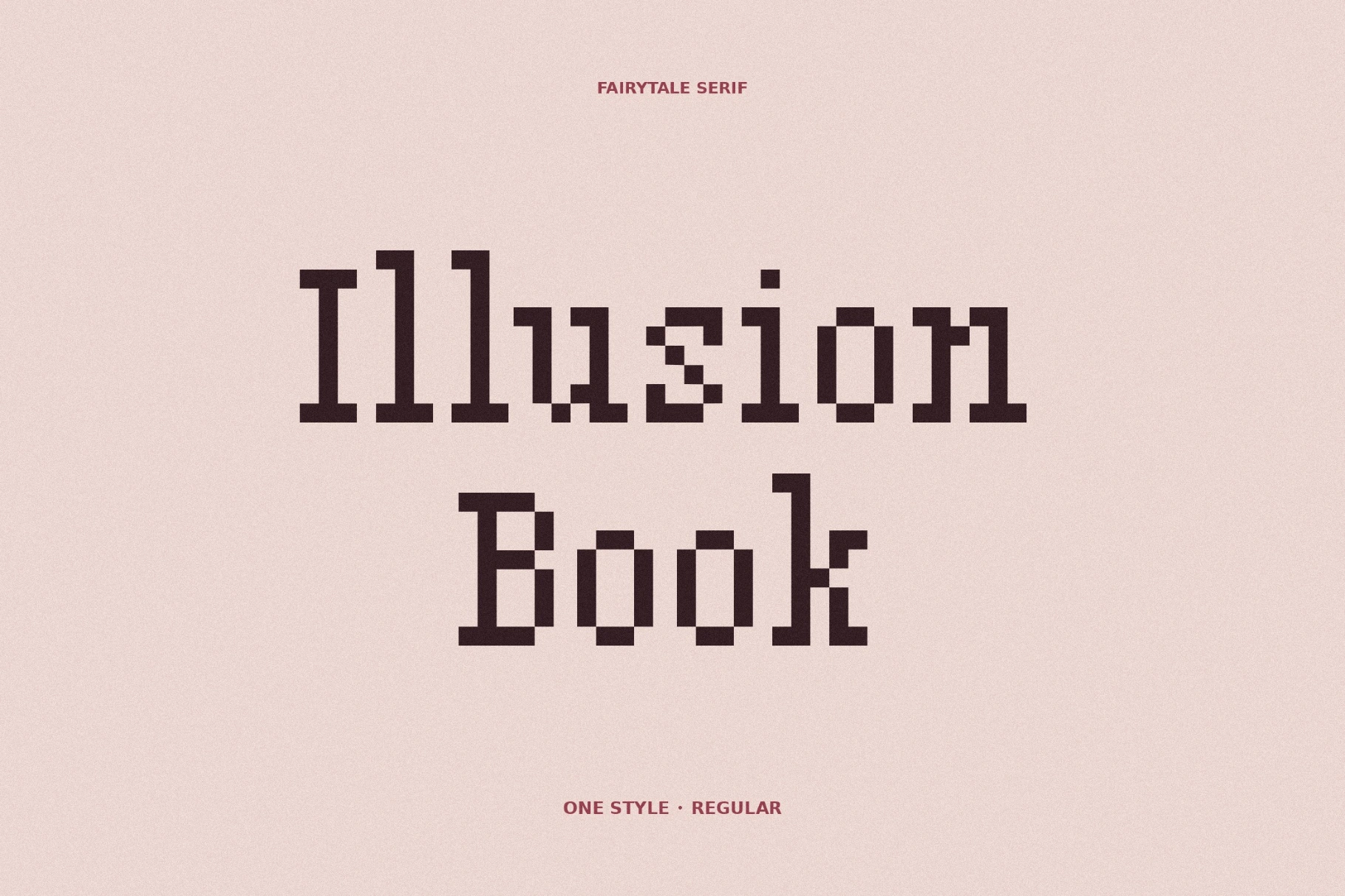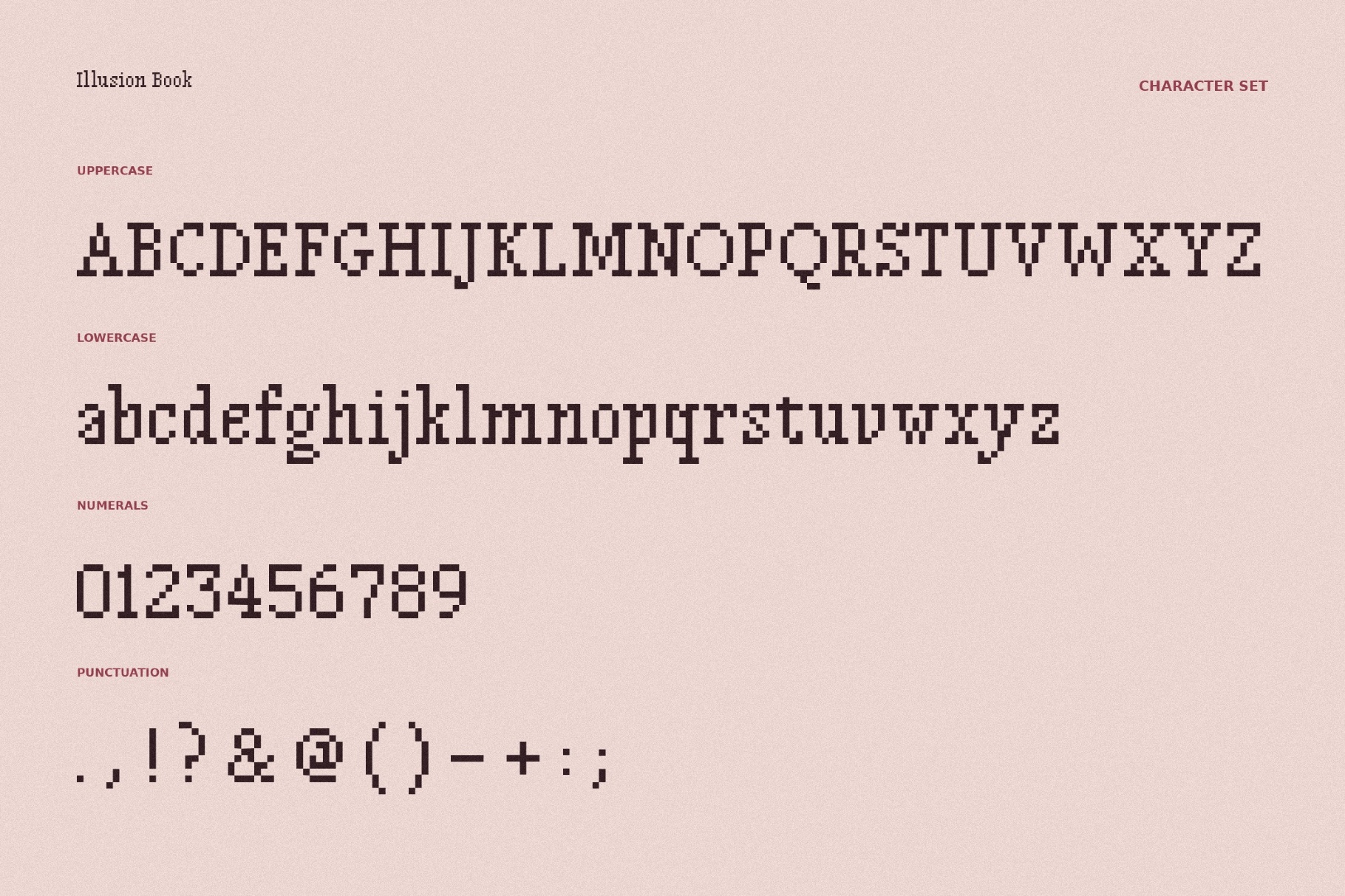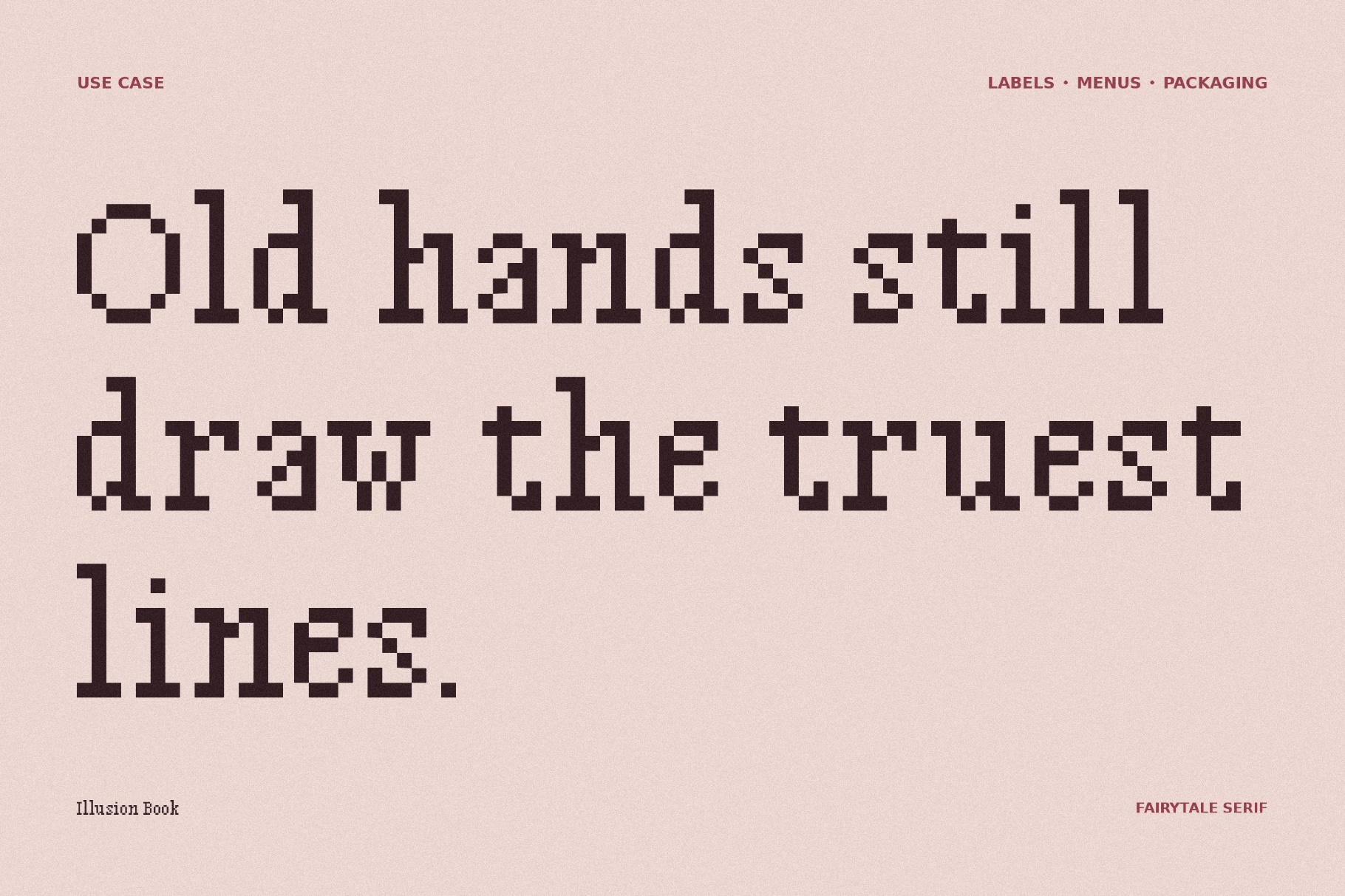
Illusion Book - Gothic Pixel Font
IllusionBook-Regular
Classic literary typography gets an uneasy digital afterlife in Illusion Book, which turns serif letterforms into something printed, rendered, and slightly glitched at once. The fantasy font of a kind, with a pixelated texture, works well for experimental book design, indie game interfaces, editorial layouts, museum captions, album sleeves, poster systems, cultural programs, and art-school-adjacent branding.
- uppercase and lowercase letters;
- numbers, punctuation, and symbols;
- multilingual support across extended Latin, Cyrillic, and Greek scripts;
- ligatures.